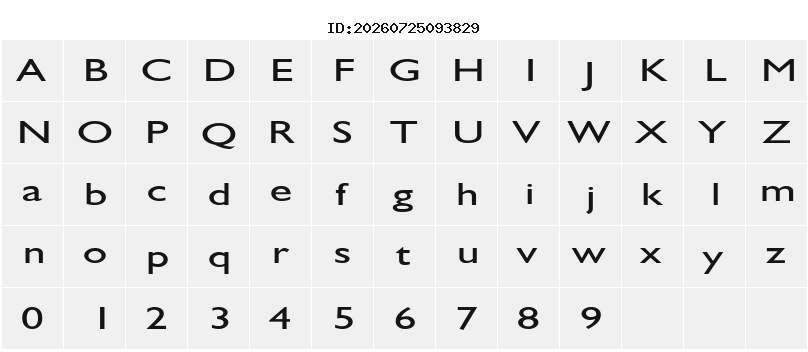
GibraltarExtended Preview
• Font Name: GibraltarExtended
• Font ID: SWFTE:GibraltarExtended Regular
• Full Font Name: GibraltarExtended
• Version: Rev. 003.000
• PostScript Name: GibraltarExtendedRegularSWFTE
• Character Count: 213
About GibraltarExtended.ttf
GibraltarExtended.ttf is a modern, elegant sans-serif font designed for ultimate readability and visual harmony. Perfect for branding, headlines, web design, and print materials.